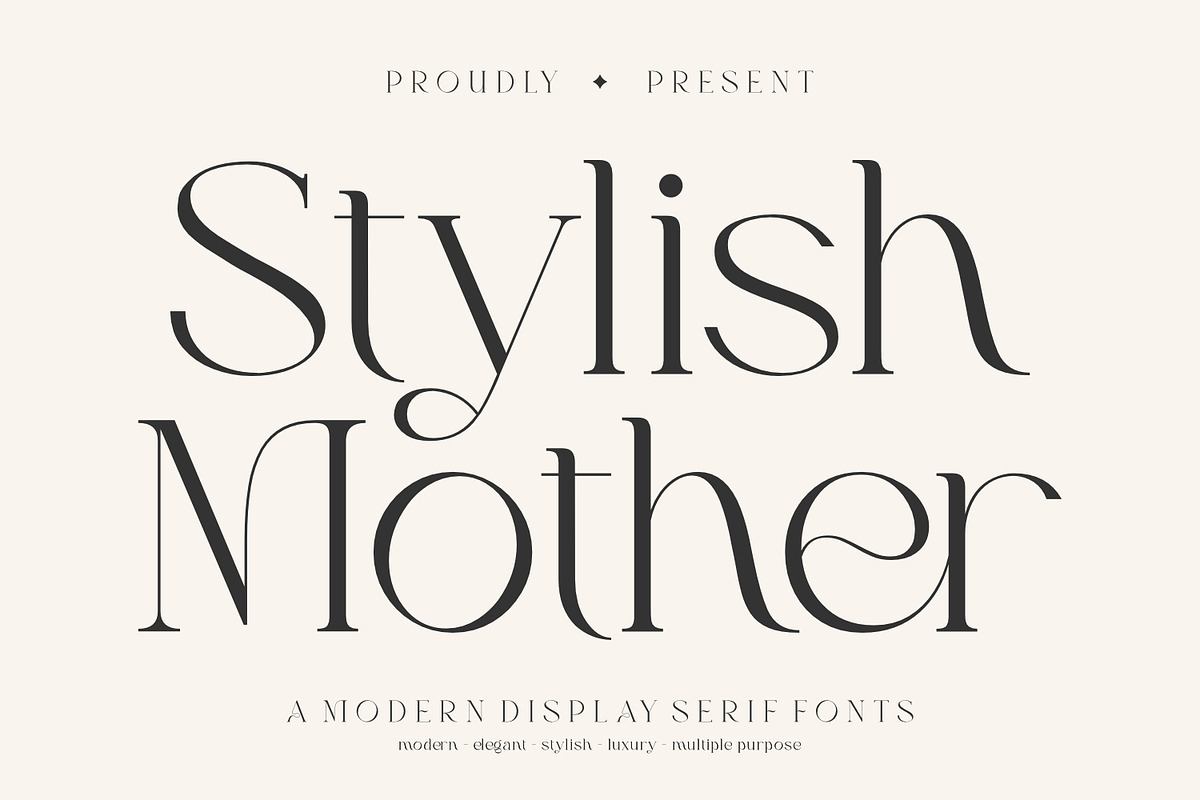
Stylish Mother – Display Serif Font Free Download
You must purchase this font for commercial use. However, you can download Stylish Mother – Display Serif Font Free Download for testing purposes. Stylish Mother is a bold and elegant display serif font designed to make a strong visual impact while maintaining a refined and fashionable look. Ideal for editorial headlines, luxury branding, fashion magazines, packaging, logos, and social media posts, this typeface commands attention with grace.
With high contrast strokes, dramatic curves, and modern detailing, Stylish Mother blends vintage charm with contemporary flair. Its unique letterforms create an upscale feel that's perfect for creative professionals looking to elevate their typography. Whether used in uppercase for dramatic titles or mixed case for stylistic quotes, Stylish Mother – Display Serif Font Free Download provides the versatility and beauty needed to stand out. Test it freely before any commercial use, and don’t forget to acquire the appropriate license for business or client projects. Download Stylish Mother – Display Serif Font Free Download today and bring bold elegance to your next design.